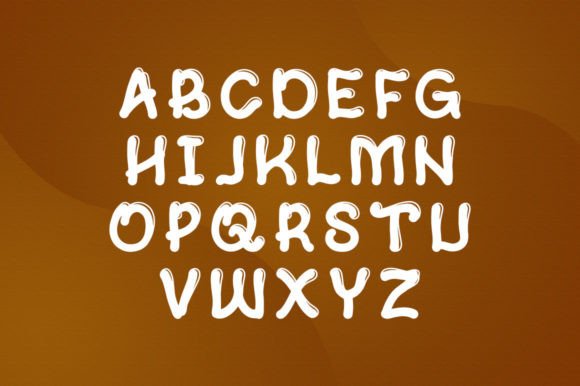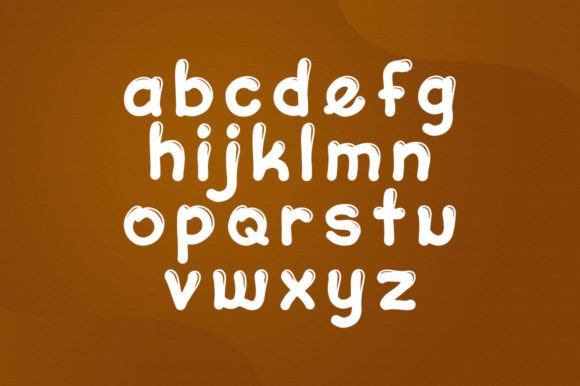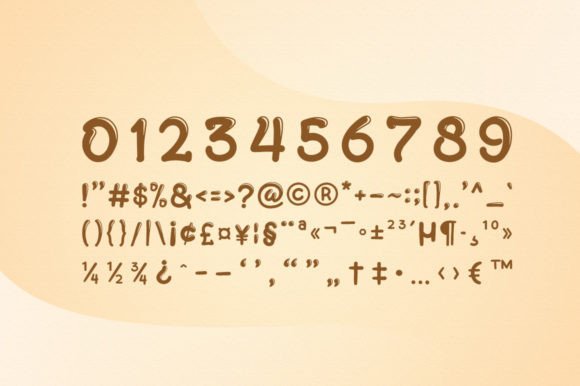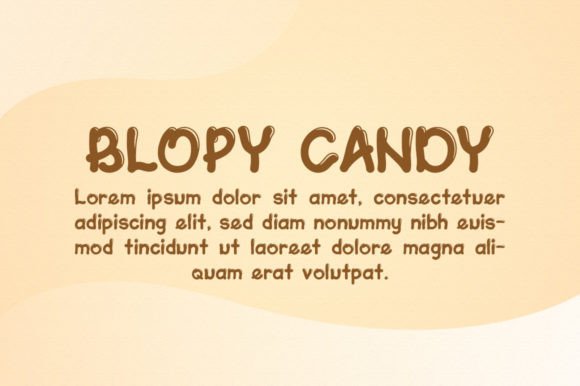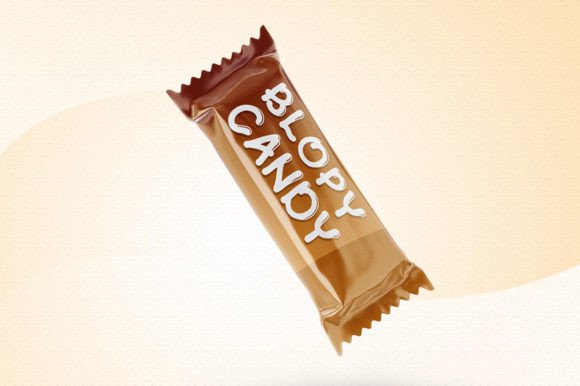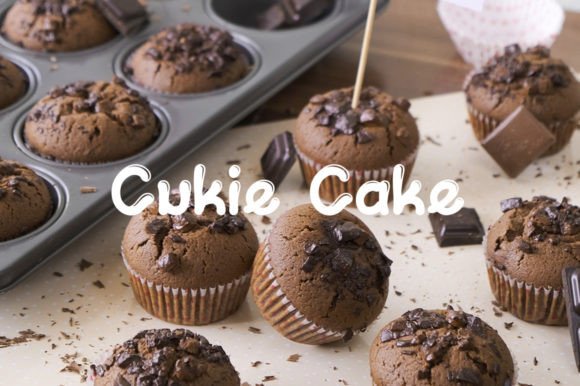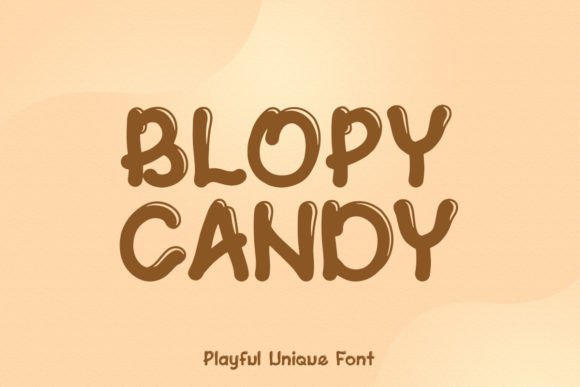
Introducing Blopy Candy Font: The Ultimate Display Font for Fun and Playful Designs
Are you tired of using the same old fonts in your designs? Do you want to add a touch of whimsy and quirkiness to your projects? Look no further than Blopy Candy Font! This fun and playful display font is perfect for designers and crafters who want to brighten up their designs and make them stand out.
What is Blopy Candy Font?
Blopy Candy Font is a unique and eye-catching display font that is sure to add a pop of fun to any design. With its whimsical and quirky style, this font is perfect for projects that require a playful touch. Whether you’re designing a logo, a poster, or a social media graphic, Blopy Candy Font is sure to make your design shine.
Key Features of Blopy Candy Font
- Fun and Playful Style: Blopy Candy Font has a unique and playful style that is sure to add a touch of whimsy to your designs.
- Display Font: This font is specifically designed as a display font, making it perfect for headlines, titles, and other large text elements.
- Quirky and Eye-Catching: Blopy Candy Font has a quirky and eye-catching style that is sure to grab attention and make your designs stand out.
Why Use Blopy Candy Font?
There are many reasons why you should use Blopy Candy Font in your designs. Here are just a few:
- Adds a Touch of Whimsy: Blopy Candy Font adds a touch of whimsy and quirkiness to your designs, making them more visually appealing.
- Perfect for Playful Designs: This font is perfect for designs that require a playful touch, such as children’s party invitations, fun social media graphics, and playful logos.
- Easy to Read: Despite its playful style, Blopy Candy Font is easy to read, making it perfect for use in headlines and titles.
- Versatile: This font can be used in a variety of designs, from digital graphics to print materials.
Design Ideas Using Blopy Candy Font
Blopy Candy Font is a versatile font that can be used in a variety of designs. Here are a few ideas to get you started:
- Children’s Party Invitations: Use Blopy Candy Font to create fun and playful children’s party invitations.
- Social Media Graphics: Use this font to create eye-catching social media graphics that are sure to grab attention.
- Playful Logos: Use Blopy Candy Font to create playful logos for your business or brand.
- Crafting Projects: Use this font to add a playful touch to your crafting projects, such as scrapbooking and card making.
Blopy Candy Font is a fun and playful display font that is perfect for designers and crafters who want to add a touch of whimsy to their designs. With its quirky and eye-catching style, this font is sure to make your designs stand out. Whether you’re designing a logo, a poster, or a social media graphic, Blopy Candy Font is a great choice. So why not give it a try and see the fun and playful results for yourself?